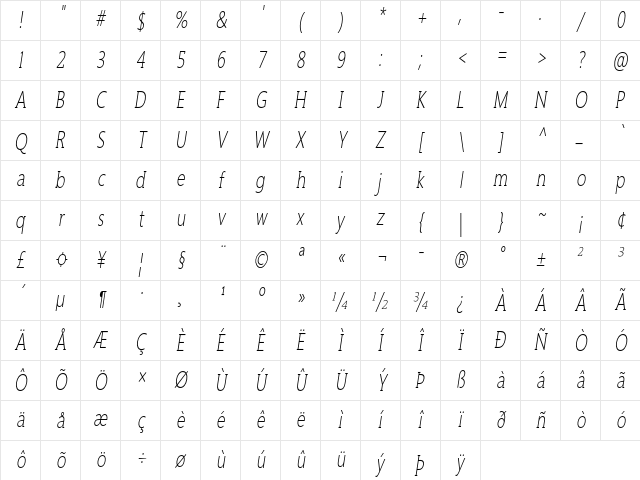
Eledonia Condensed Italic
Style: Condensed Italic
Eledonia Family
Eledonia Condensed Italic
Design Context for Eledonia
Eledonia is a composed and adaptable typeface that performs quietly and consistently across a wide range of design contexts. The slanted form adds forward momentum and visual energy. Its narrow stance lets it pack a punch even in space-constrained designs.
Pro Tip: Use Eledonia for emphasis, pull quotes, and subheadings where its slanted energy can add rhythm to the layout.